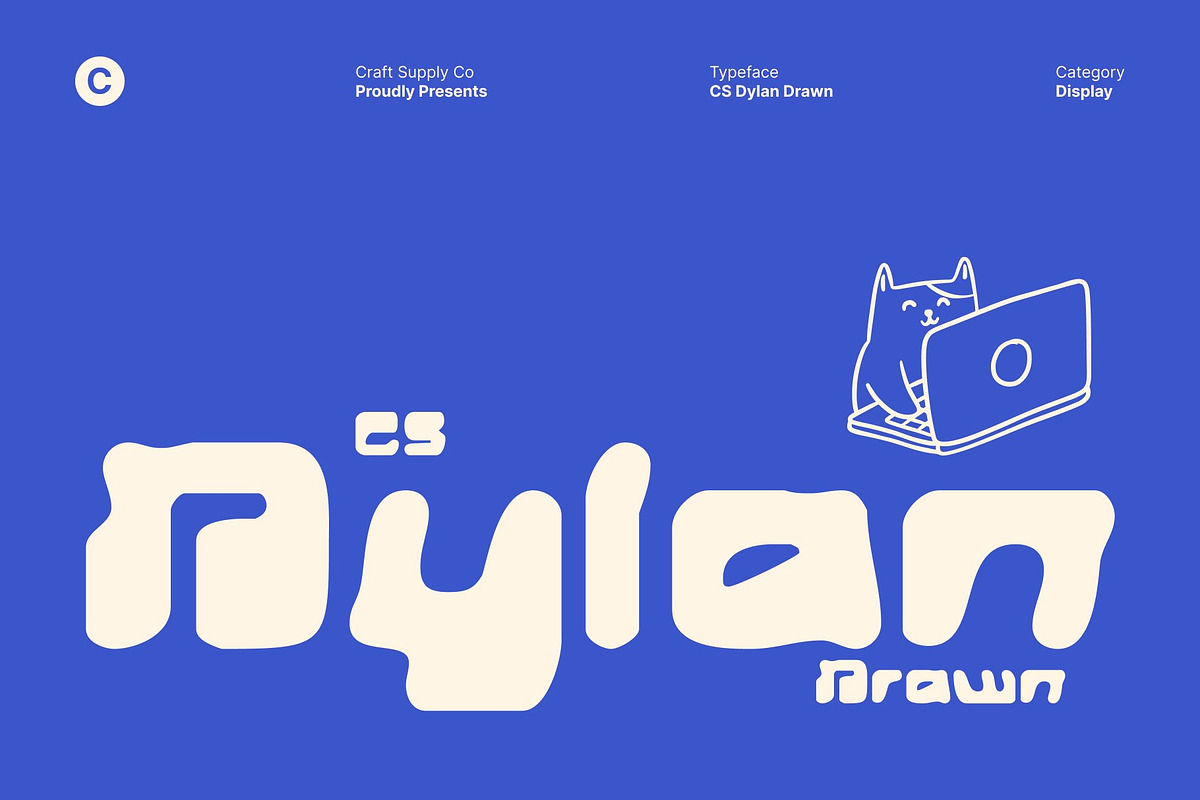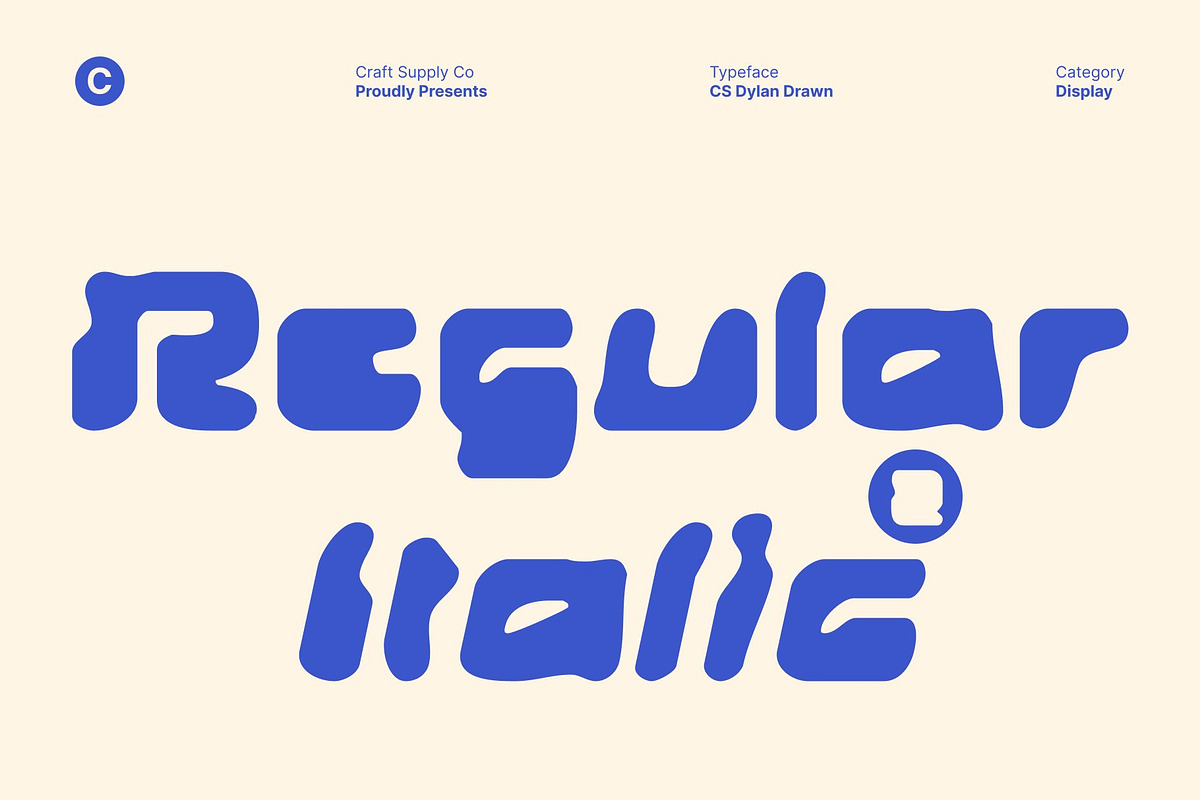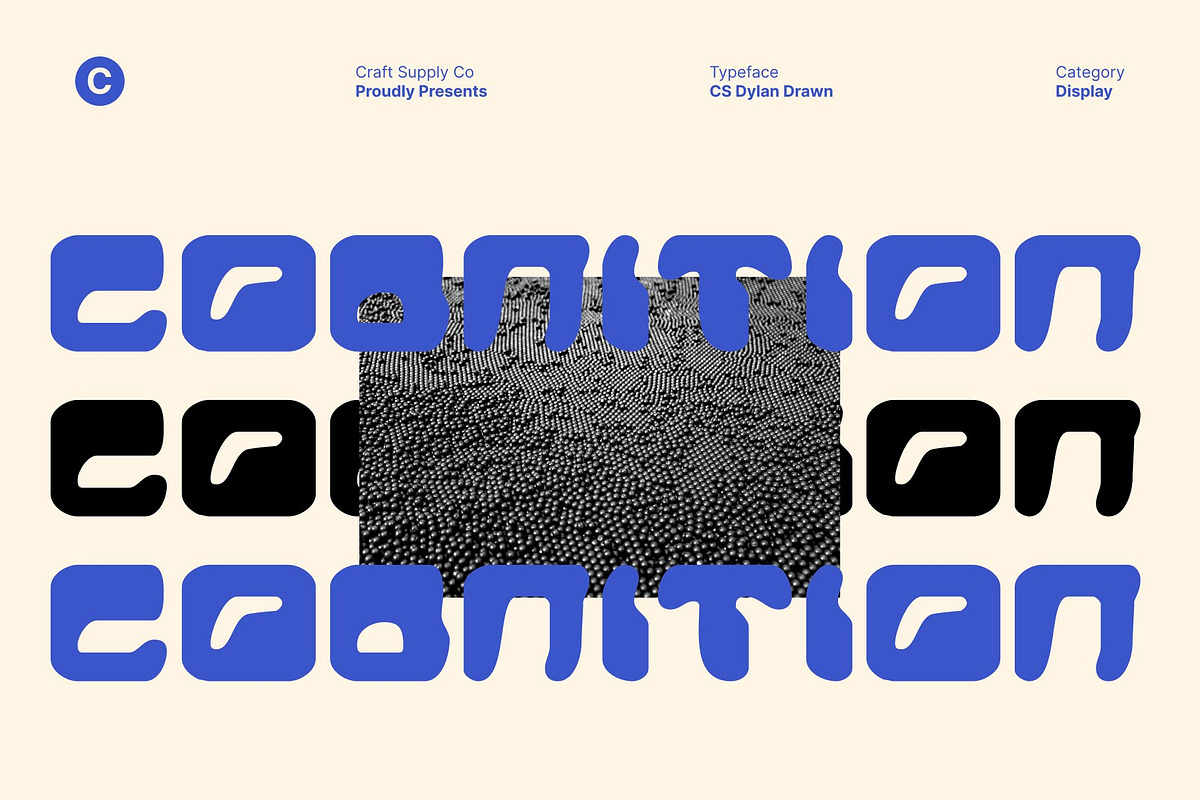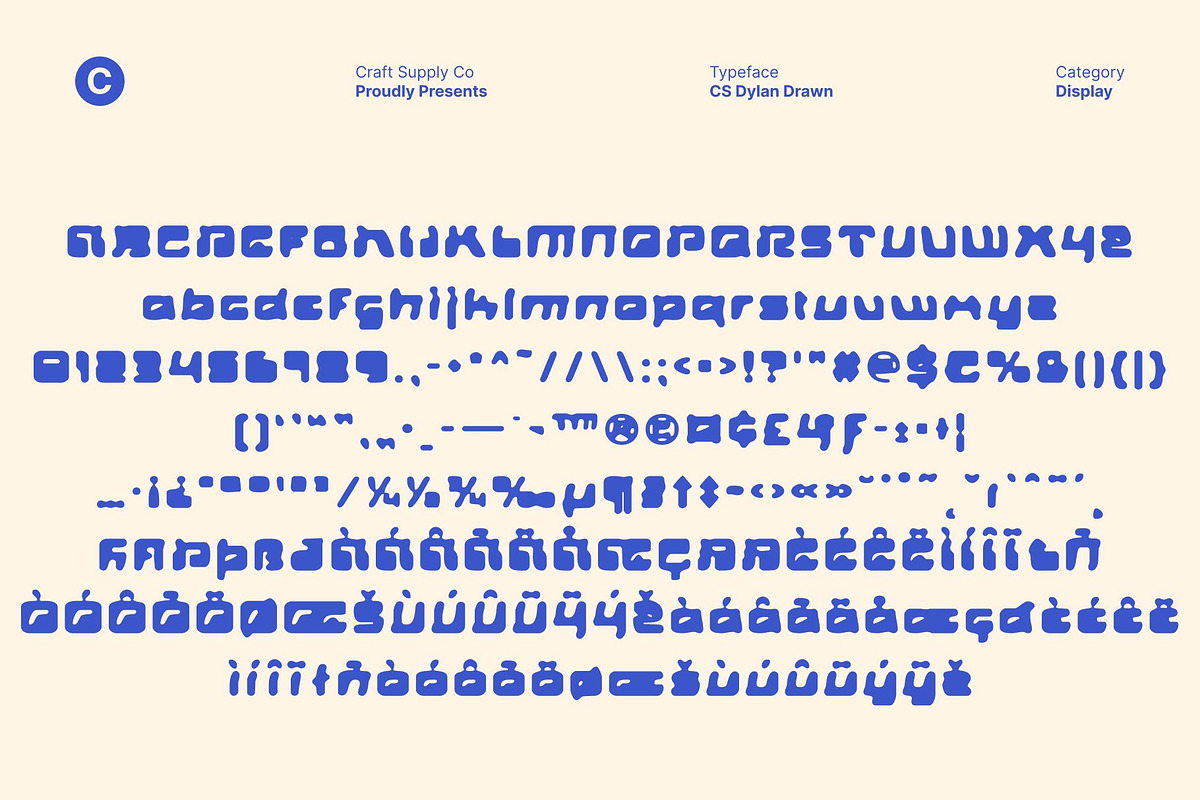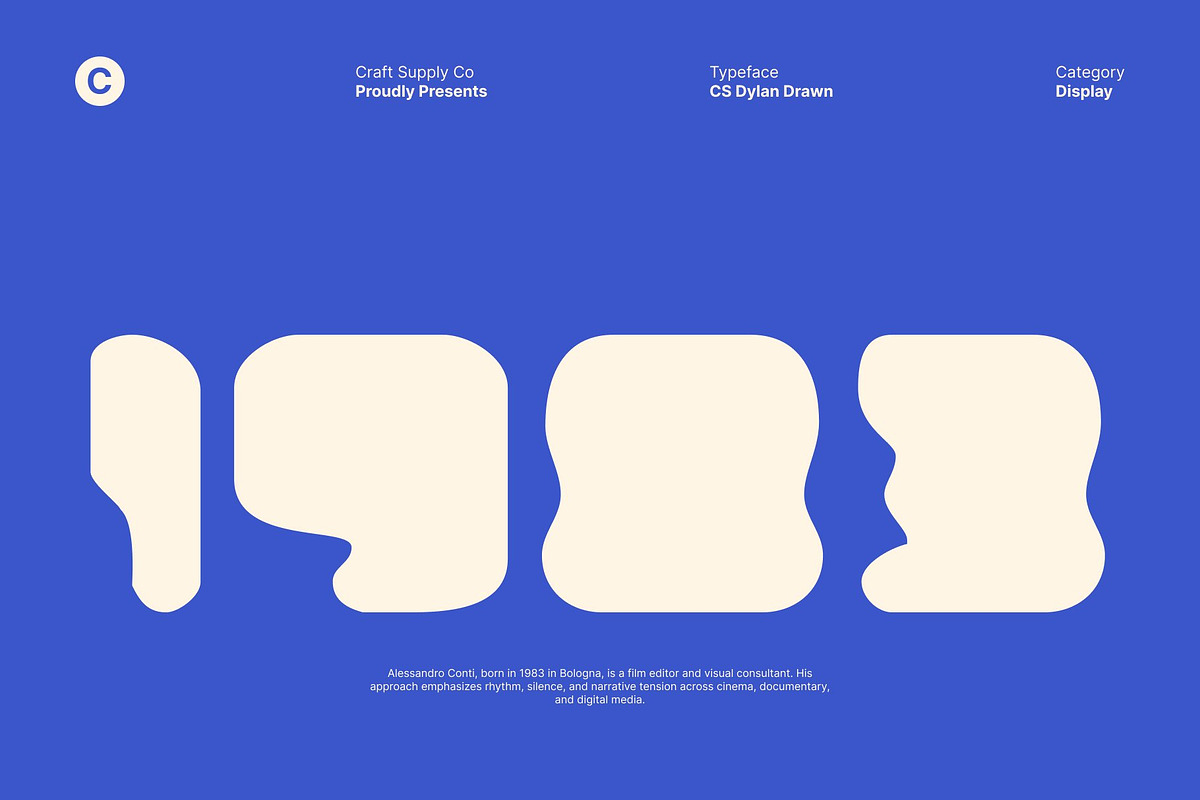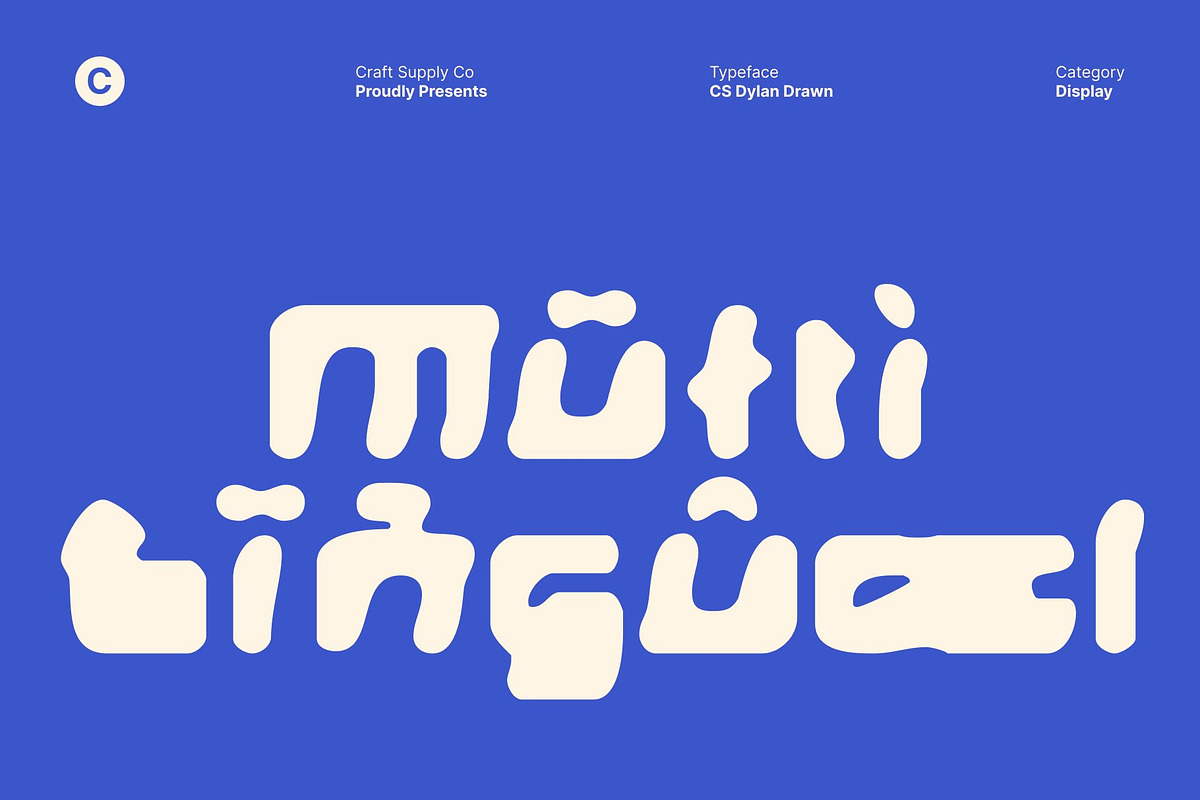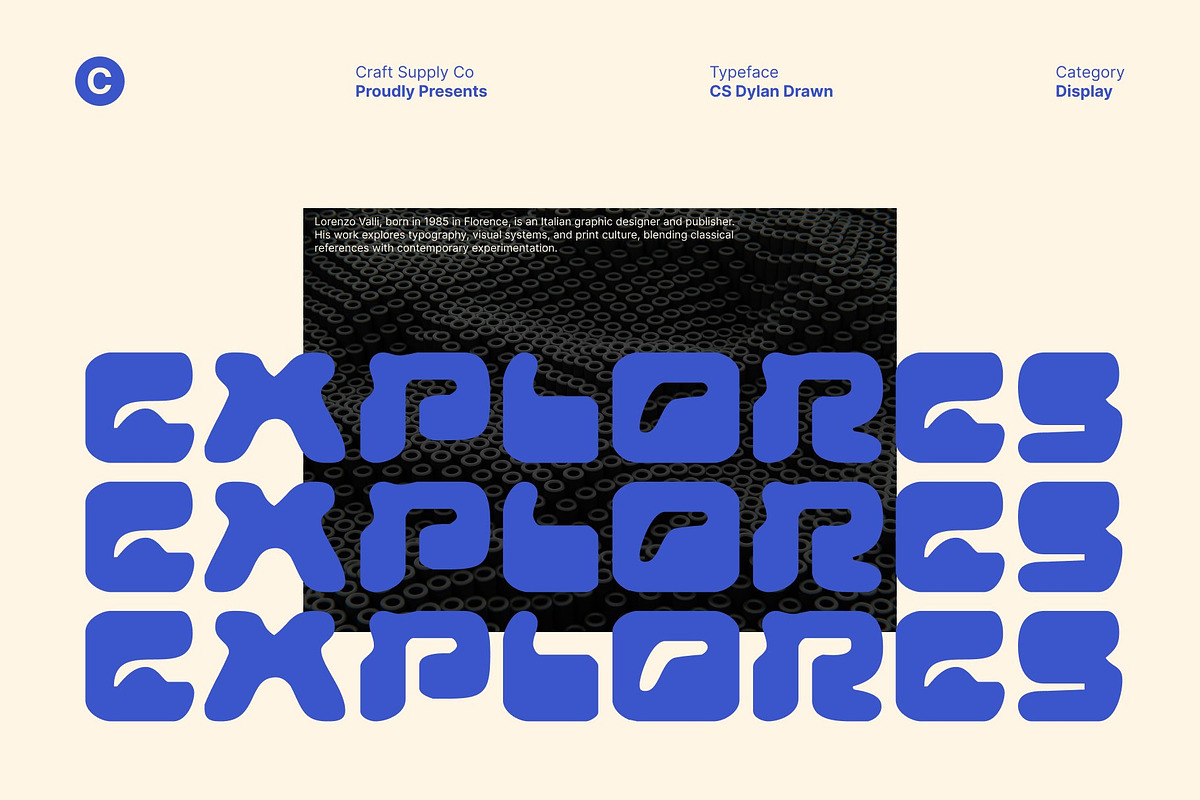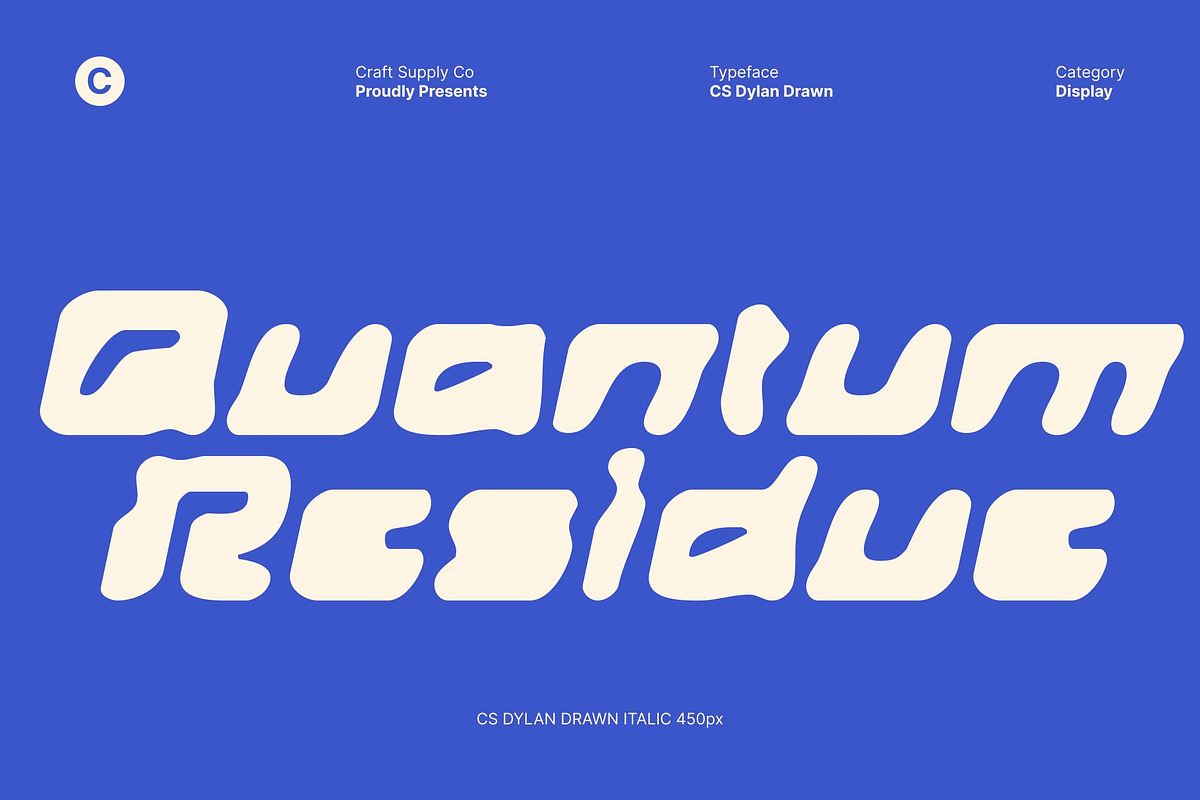
CS Dylan Drawn
CS Dylan Drawn – Visionary Futuristic Display Font
Cutting-Edge Typography with Hand-Drawn Energy This is a futuristic display font that combines bold, high-tech design with an expressive hand-drawn texture. Built on sharp geometric structures and clean modern forms, it reflects innovation, digital sophistication, and forward-thinking design. The drawn effect adds an artistic, human touch that makes the font feel more dynamic and visually alive.
Sleek, Angular, and Futuristically Expressive Each letterform features precise angles, strong lines, and imaginative constructions inspired by sci-fi visuals, digital interfaces, and advanced technology. While the structure feels clean and futuristic, the hand-drawn detailing introduces subtle imperfections that add depth, movement, and character creating a balance between mechanical precision and creative expression.
Perfect for Tech, Gaming, and Sci-Fi Visuals This font excels in futuristic applications such as gaming titles, sci-fi posters, tech branding, and digital campaigns. Its bold presence ensures strong readability, while its unique drawn texture helps designs stand out with originality and visual intrigue.
Designed for Visionary Creatives Ideal for designers and brands that think ahead, this font delivers a powerful futuristic voice with artistic flair. It’s a font that communicates innovation, imagination, and digital edge perfect for projects that aim to feel bold, modern, and unmistakably forward-looking.